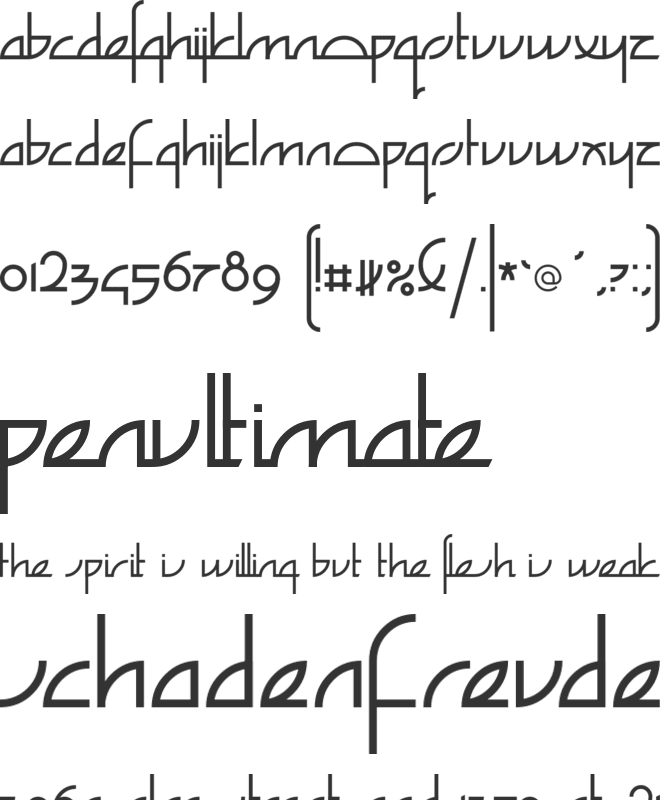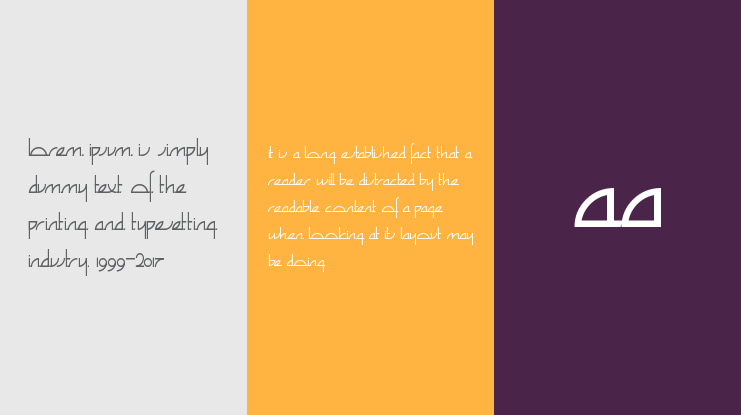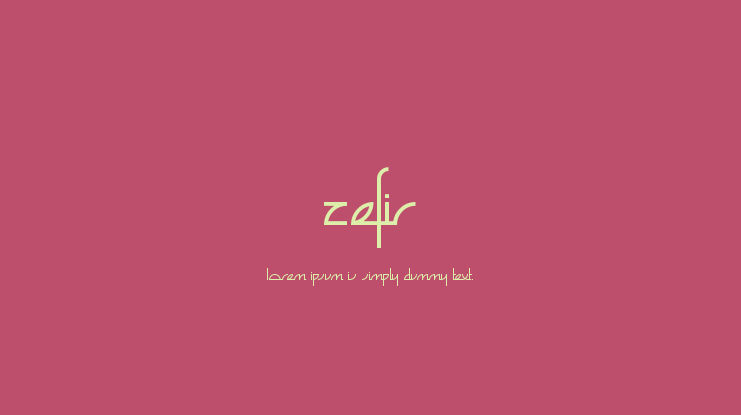
Immerse yourself in the arabic vibes with the neat stylish shapes.
Easy to read and available in three handy widths to suit the widest range of application.
Zefir font, designed by Adam Rucki